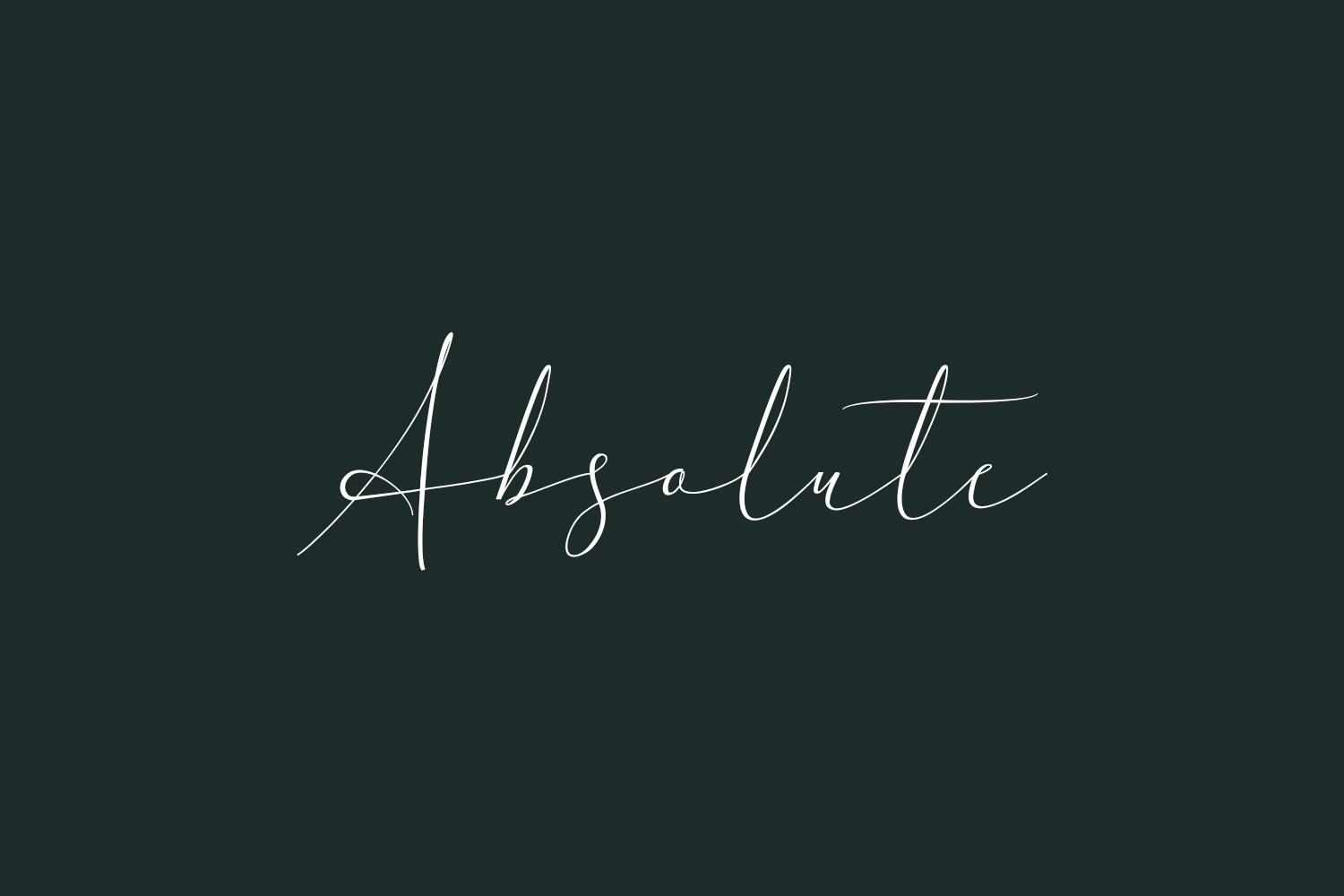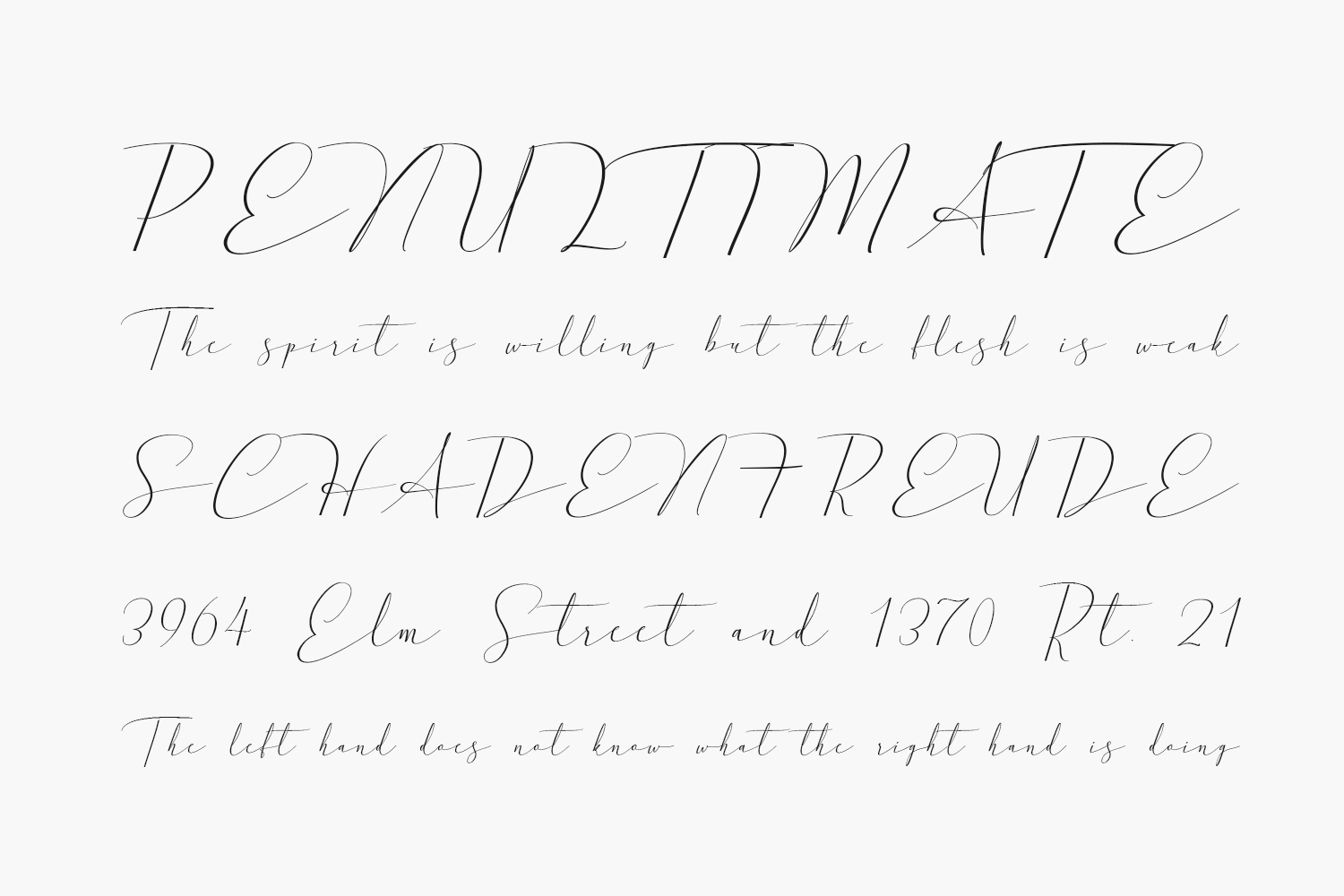
Absolute Free Font offers a neat, elegant handwritten typeface. It works great as a fancy font, which makes it suitable for fashion, apparel, business, and much more. Absolute Free Font was designed by Studiorazi and is free for personal use only. Please purchase the full version for commercial use.